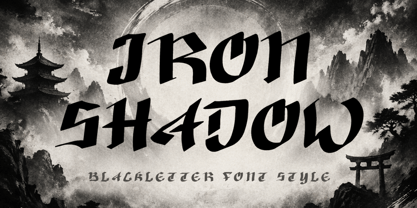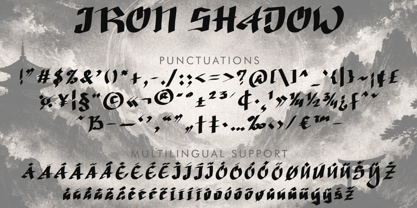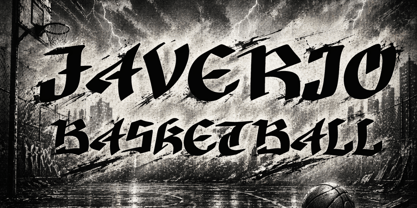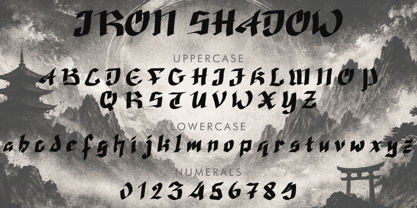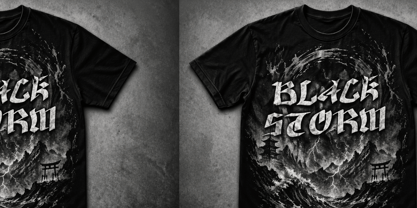
Iron Shadow
by Yoga Letter
The Iron Shadow Font Family was designed by Isroni Yoga Prasetya and published by Yoga Letter. Iron Shadow contains 1 styles. More about this family
"Iron Shadow" is a modern and elegant blackletter font. It features uppercase and lowercase letters, numerals, punctuations, and multilingual support. It's perfect for banners, branding, stickers, posters, business branding, t-shirts, action film, back to school logos, summer, movie titles, action, adventure films, spring, Easter, social media, murals, and more.
Designers: Isroni Yoga Prasetya
Foundry: Yoga Letter